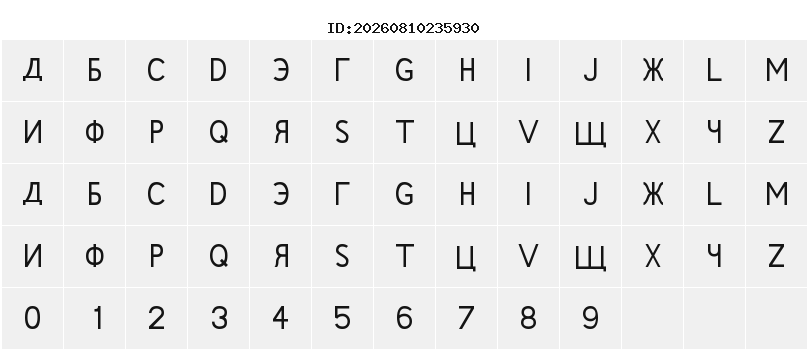
About Rushin.ttf
Rushin.ttf is a modern, elegant sans-serif font designed for ultimate readability and visual harmony. Perfect for branding, headlines, web design, and print materials.